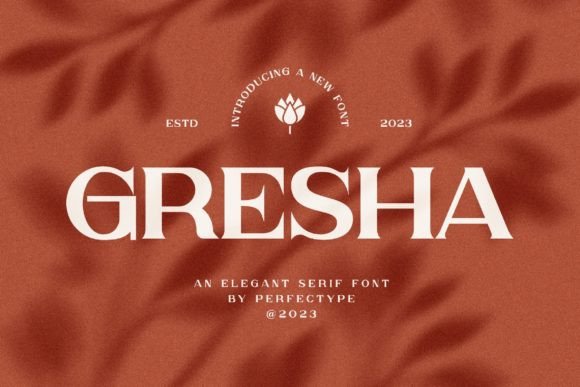
Introducing Gresha Font, the epitome of elegance and modernity in the world of typography. Crafted by Perfectype, this serif font is the perfect choice for anyone looking to elevate their designs and captivate their audience. With its versatility and stunning visual appeal, Gresha Font is guaranteed to leave a lasting impression on all who lay eyes on it.
Whether you're working on a branding project, designing a logo, planning a wedding, or even creating social media posts, Gresha Font has got you covered. Its sophisticated and classy style adds a touch of refinement to any project, making it stand out from the crowd. Imagine the impact it will have on your advertisements, product packaging, labels, and photography – it's simply incomparable.
One of the most remarkable features of Gresha Font is its exceptional readability. Each character is meticulously crafted to ensure optimal legibility, allowing your message to shine through effortlessly. Say goodbye to those moments of frustration when your audience struggles to decipher your text – with Gresha Font, clarity and comprehension are guaranteed.
But Gresha Font goes beyond just being visually appealing and easy to read. It evokes a range of emotions that will resonate with your audience on a deeper level. Its elegant curves and graceful strokes create a sense of sophistication and refinement, making it the ideal choice for high-end projects. You want your designs to convey a sense of luxury and exclusivity? Look no further – Gresha Font will help you achieve just that.
We understand that every project is unique, and that's why Gresha Font is designed to be incredibly versatile. Its timeless and adaptable nature allows it to effortlessly complement a wide range of aesthetics and styles. Whether you're going for a classic look or a more contemporary vibe, Gresha Font is the perfect companion to bring your vision to life.